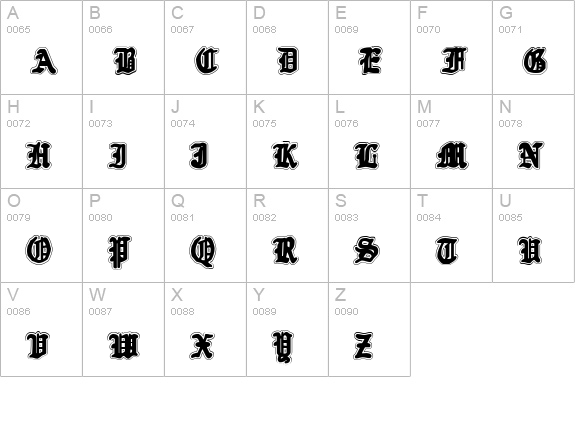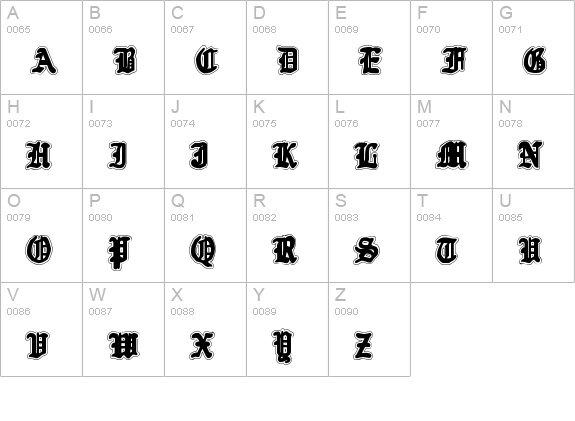
Introducing Quest Knight Academy font, a majestic and bold typeface that embodies the spirit of adventure and bravery. This elegant font is perfect for any project that requires a touch of medieval charm and fantasy. With its intricate details and ornate design, Quest Knight Academy font is sure to make your text stand out and capture the imagination of your audience. The best part? Quest Knight Academy font is available for free download at FontsMarket.com. That's right, you can add this stunning font to your collection without spending a dime. So why wait? Embark on your typographic journey with Quest Knight Academy font today and let your words come to life in a truly magical way.